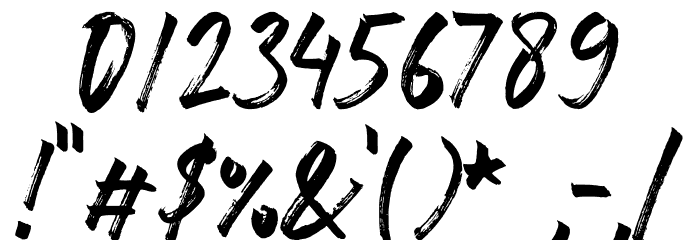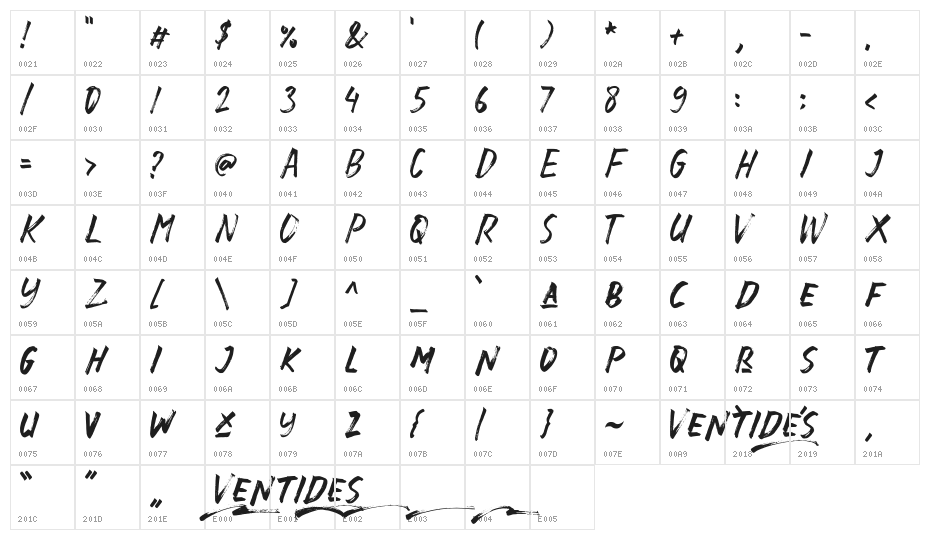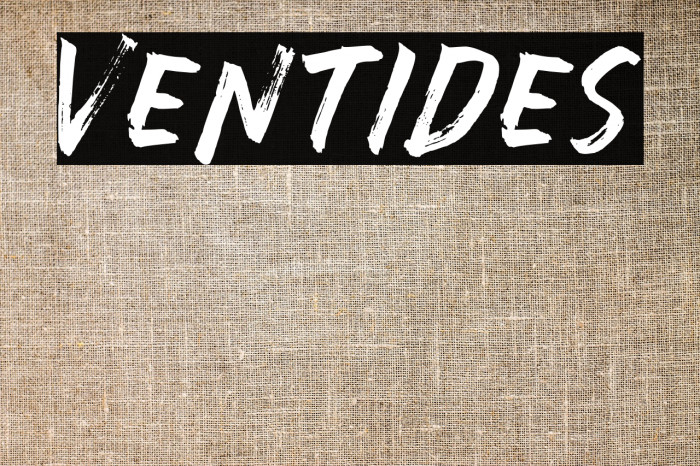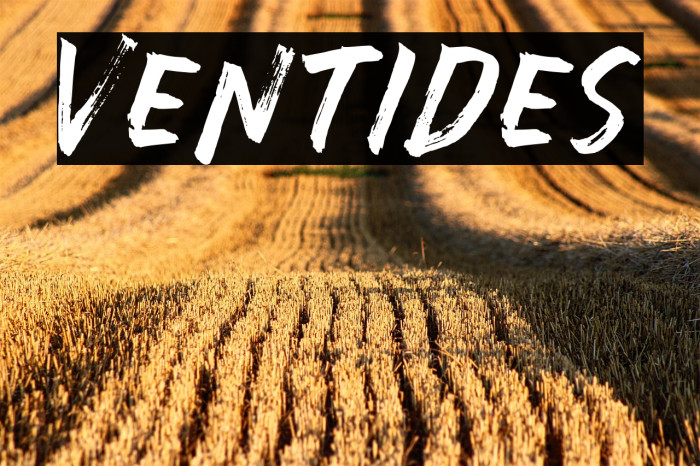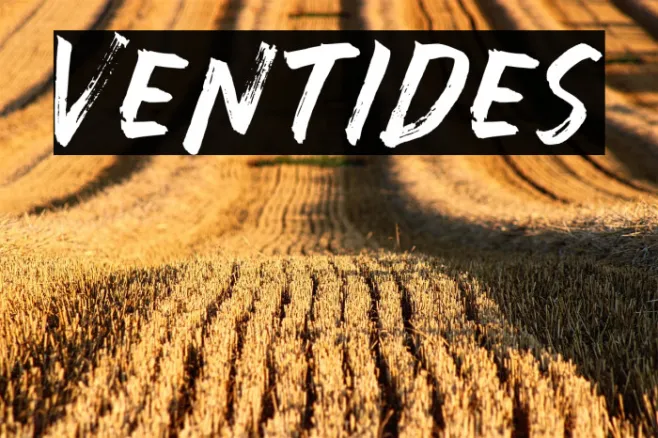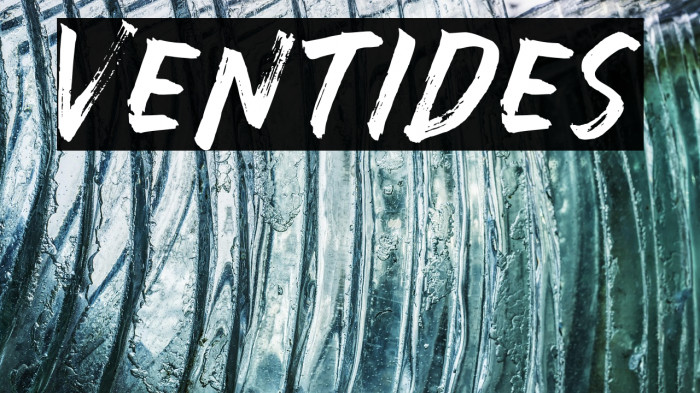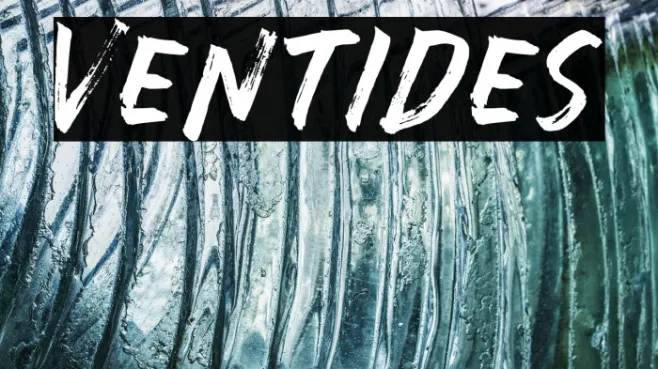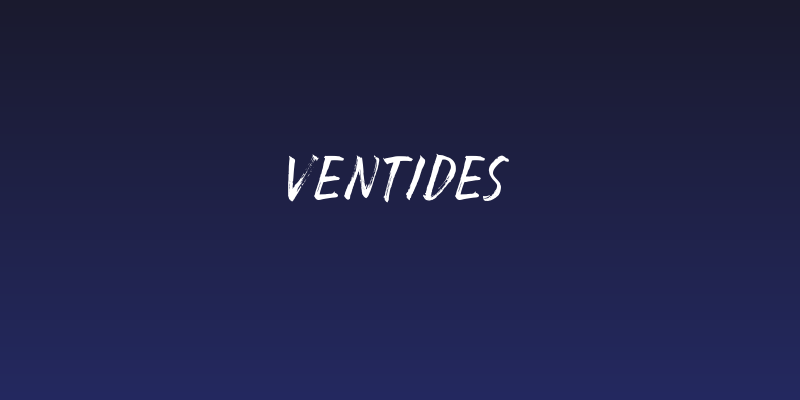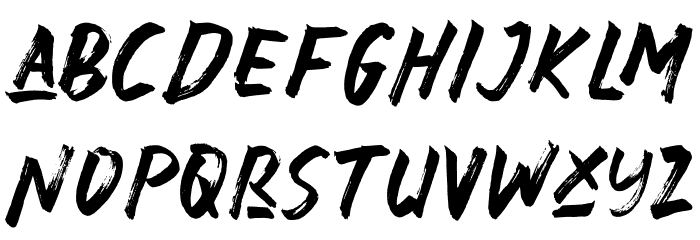
Ventides Font
Ventides Description
This font exhibits a bold, expressive style with a brush-like texture that gives it a dynamic and energetic appearance. The strokes are uneven, adding a handcrafted feel, while the letters maintain a consistent slant, suggesting movement and fluidity. The uppercase and lowercase letters are distinct, with the uppercase being more pronounced and the lowercase offering a more casual vibe. Numbers and special characters follow the same stylistic approach, ensuring uniformity across all elements. This font's unique character makes it stand out, ideal for projects that require a touch of creativity and flair.